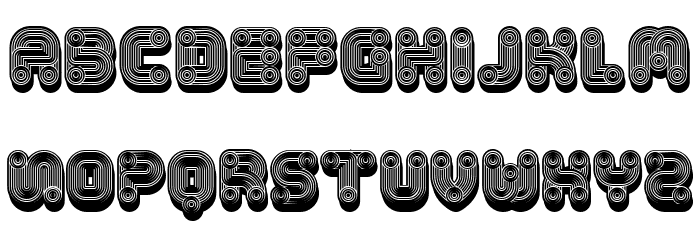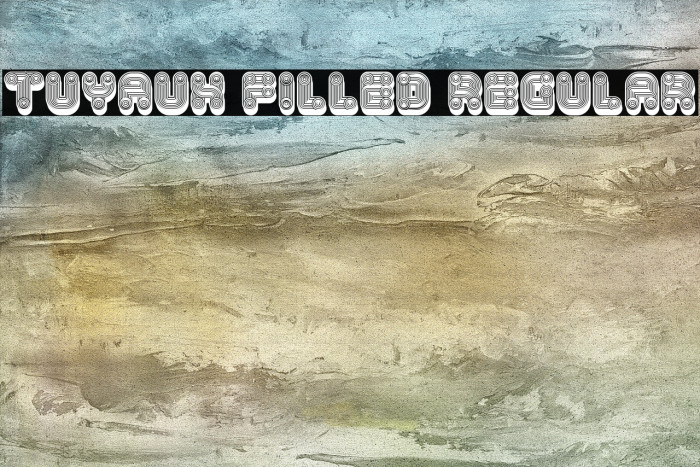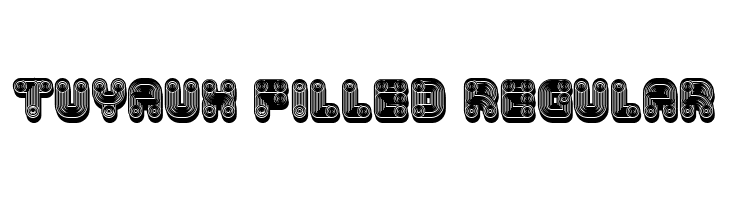
Tuyaux Filled Regular Font
This font features a bold, decorative style with a unique, layered design. Each character is composed of multiple concentric lines that create a sense of depth and texture. The rounded edges and consistent thickness throughout the characters give it a playful and modern appearance. The intricate detailing within each letterform makes it stand out, making it ideal for eye-catching designs. Its geometric structure is both artistic and structured, providing a balance between creativity and readability. The font's style is reminiscent of retro-futuristic aesthetics, combining elements of vintage design with a contemporary twist.
A bold, decorative font with layered, concentric lines and a retro-futuristic style.
- Font: Tuyaux Filled Regular
- Proposed Projects: Ideal for posters, album covers, branding, and any project requiring a striking, artistic typeface.
- Overall Style: Retro-Futuristic